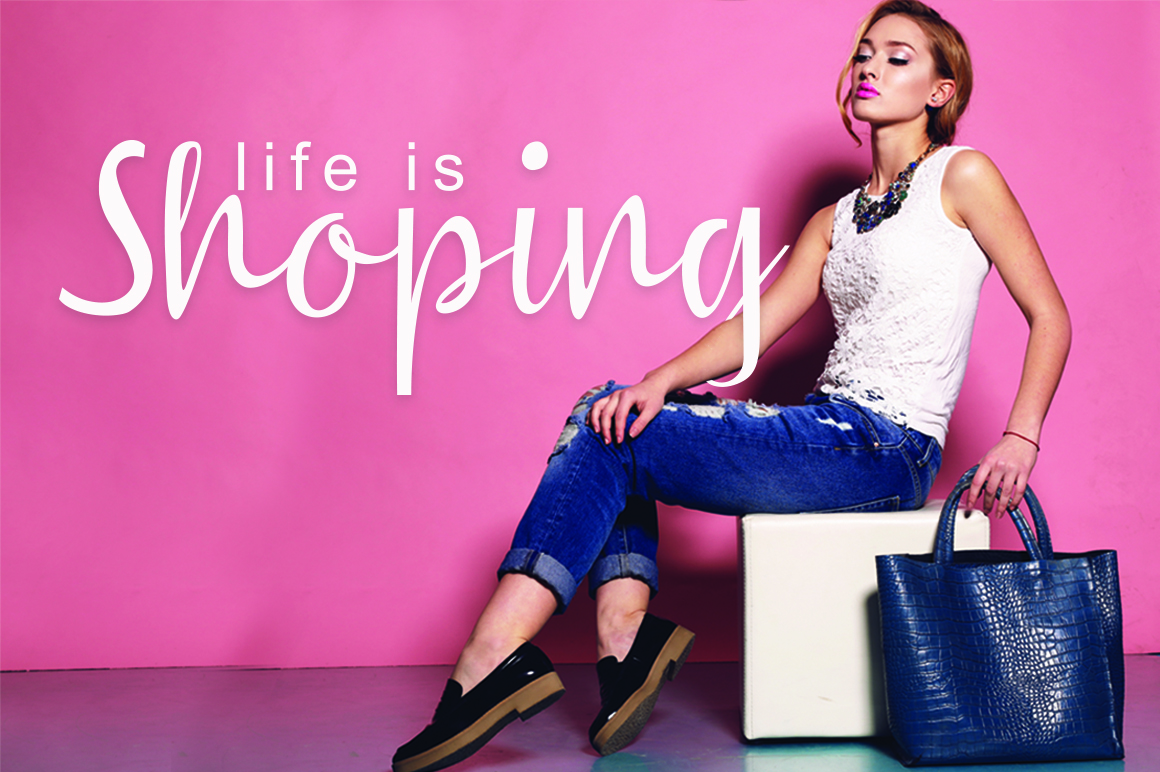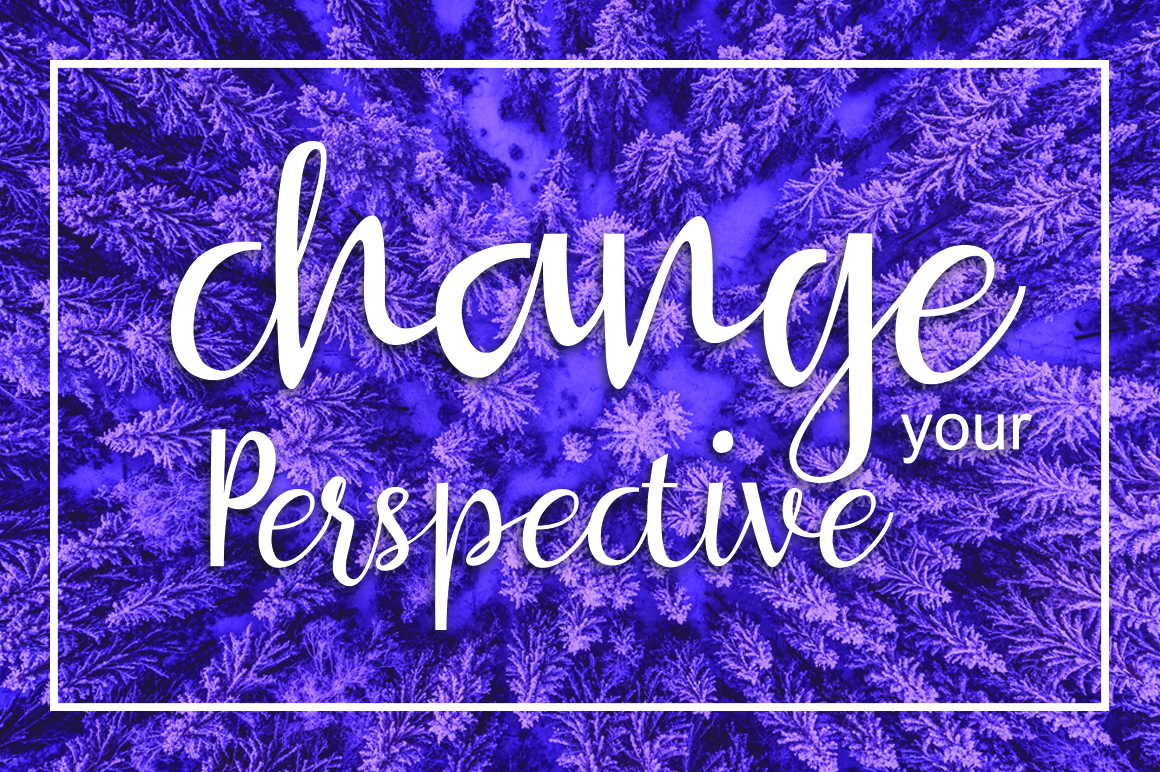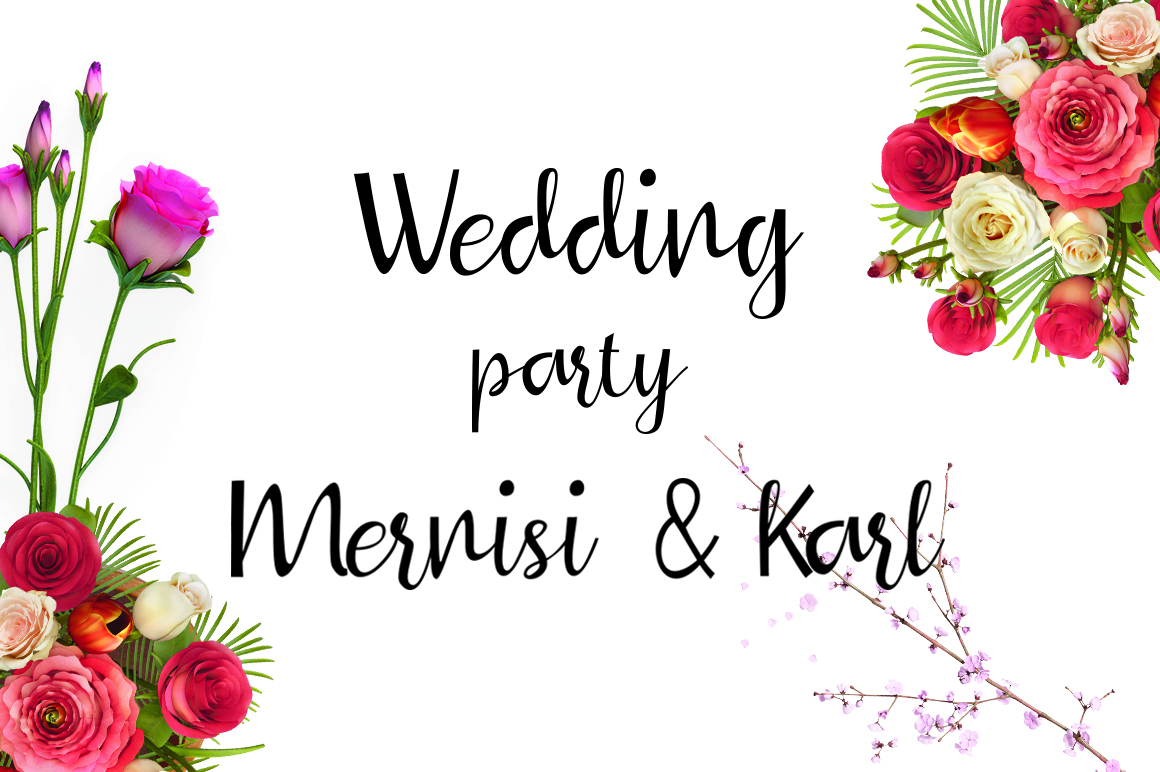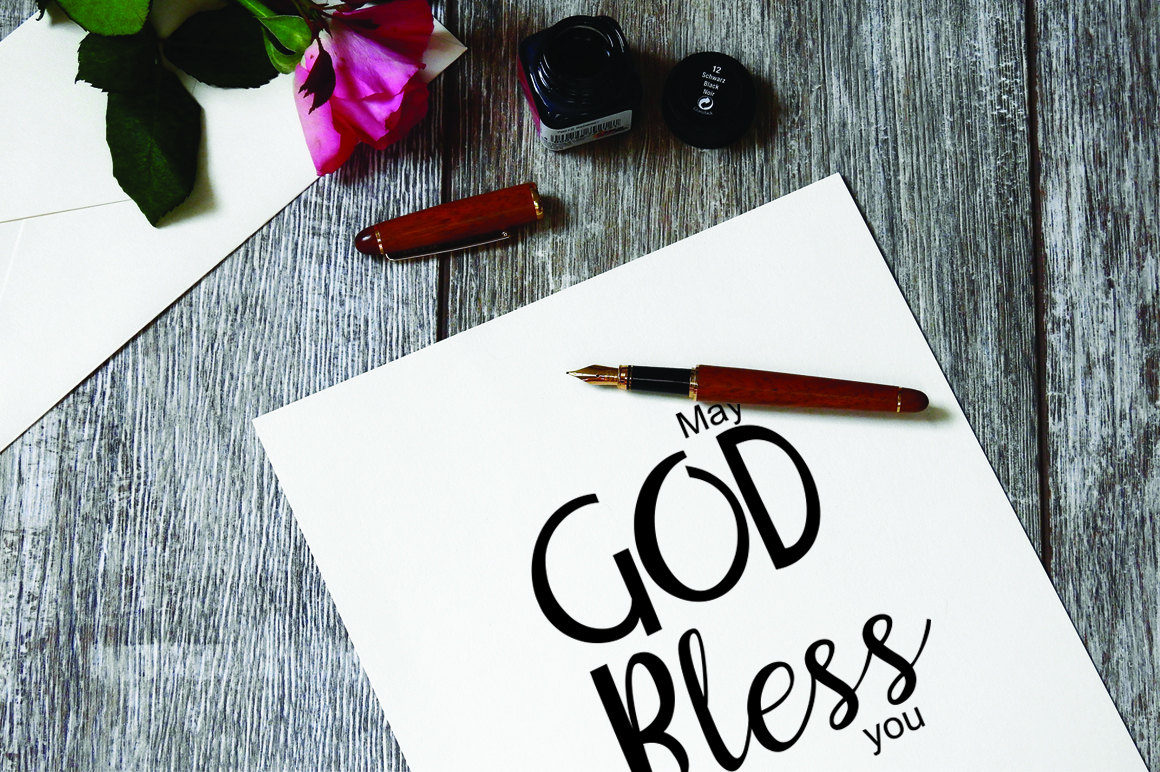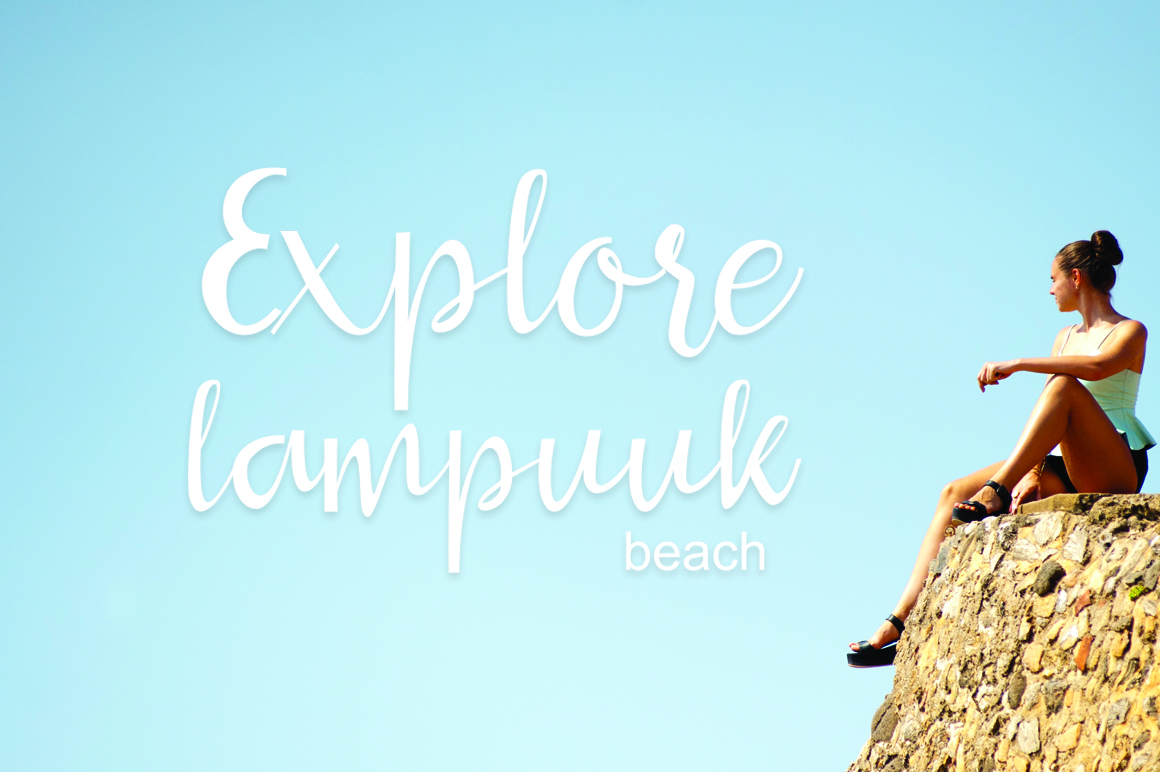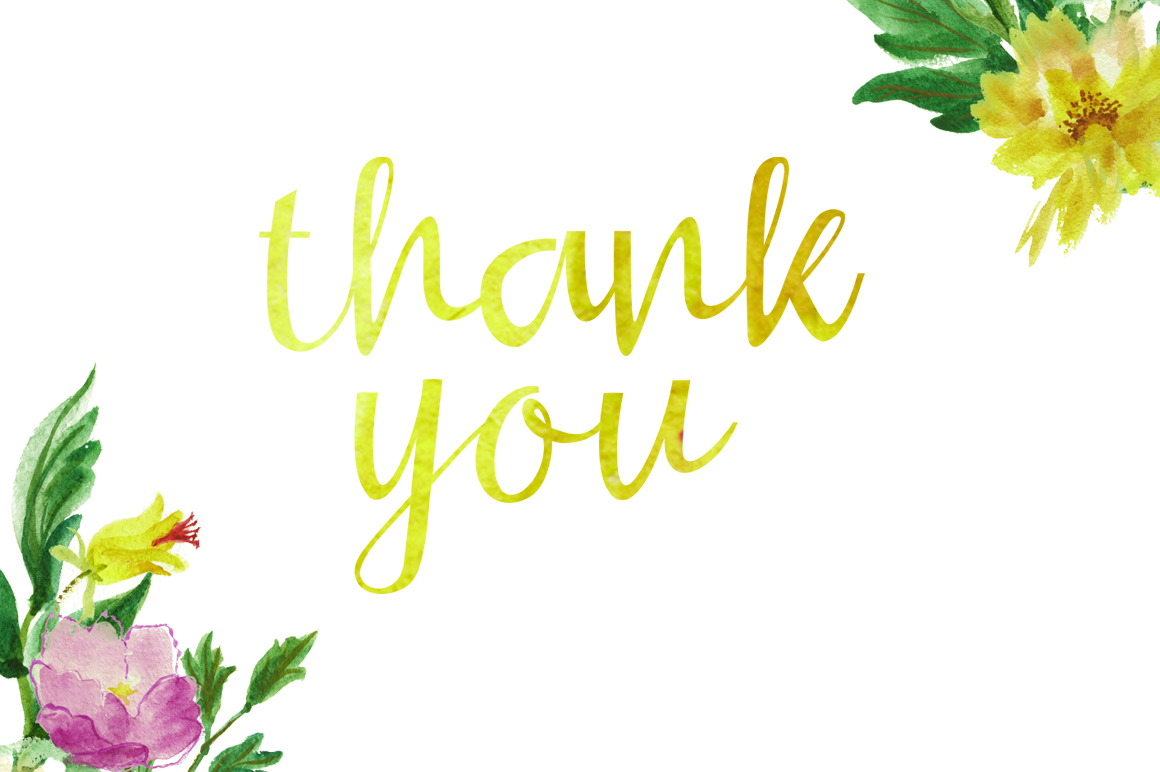
Introduction to Kartina Script Font
As you sit in front of your computer, sipping your morning coffee, and staring at a blank canvas, you know that the perfect font can make all the difference. It’s the moment when your creative project comes to life, and you envision the stunning visuals that will captivate your audience. In this moment, the right font can elevate your design from ordinary to extraordinary.
This is where the Kartina Script Font shines. With its elegant, handwritten style, it’s a versatile design resource that can add a touch of sophistication to any project. Whether you’re working on a logo, a wedding invitation, or a social media post, the Kartina Script Font is sure to impress. And the best part? It’s available for free download, making it an accessible high-quality resource for designers of all levels.
With a transparent background and a wide range of uses, the Kartina Script Font is a valuable addition to any designer’s toolkit. Its high-quality design and free availability make it a must-have resource for anyone looking to take their creative projects to the next level.
Key Features of Kartina Script Font
- Unique, elegant design perfect for creative projects and personal use.
- High-resolution font with a large character set, making it suitable for various design applications.
- Supports a wide range of languages, including Latin, Cyrillic, and Greek alphabets.
Honest Review: Kartina Script Font
I recently had the chance to work with the Kartina Script Font, and I must say it’s been a game-changer for my creative projects. The high quality and elegant design make it a fantastic design resource that I’d highly recommend.
- ✨ Beautiful, cursive script that adds a touch of sophistication to any design
- ✨ High quality and crisp, making it perfect for printing or digital use
- ✨ Versatile and suitable for a wide range of creative projects, from wedding invitations to branding materials
- ⚠️ The font may not be as readable at smaller font sizes, so be sure to test it out before using it for text-heavy designs
Overall, I’m really impressed with the Kartina Script Font, and I think it’s a great addition to any designer’s toolkit. With its beautiful design and high quality, it’s a must-have for any creative project.
For the best results, use the Kartina Script Font on a transparent background to create a stunning visual effect. This font is ideal for titles, headings, and other design elements that require a touch of elegance. Use it in your creative project to add a personal touch and make it stand out.